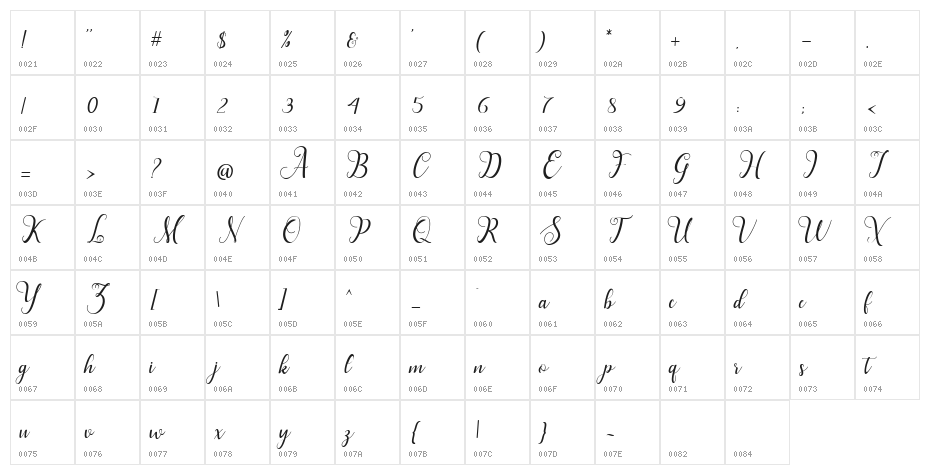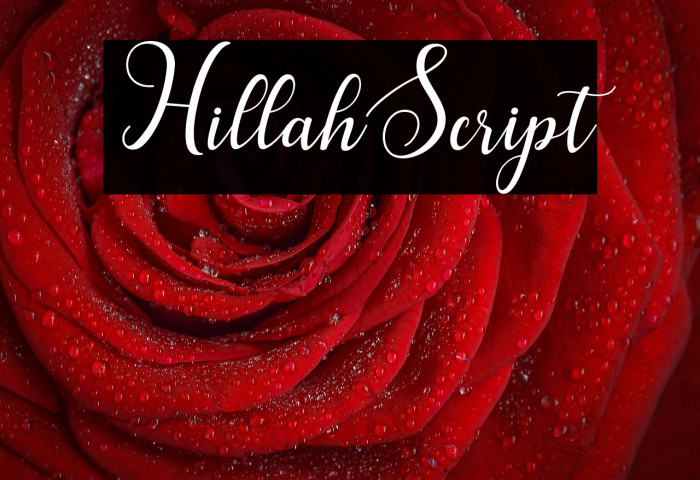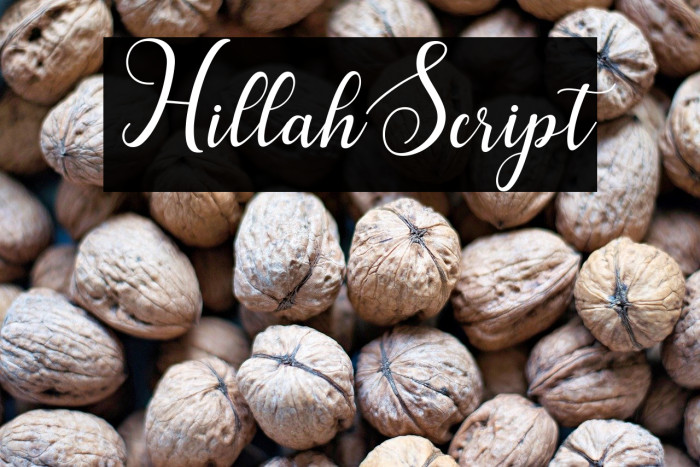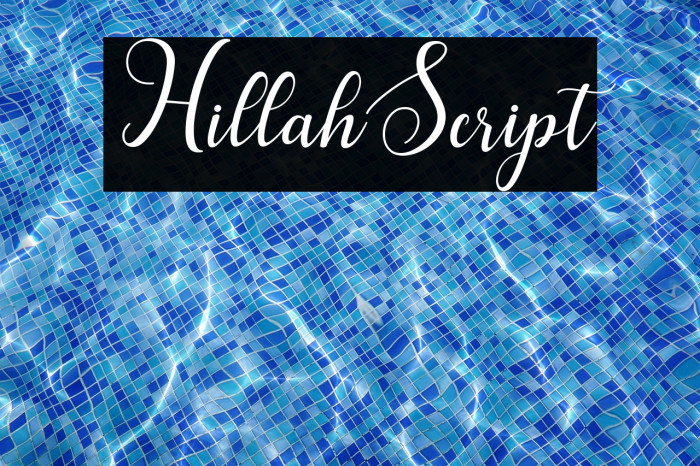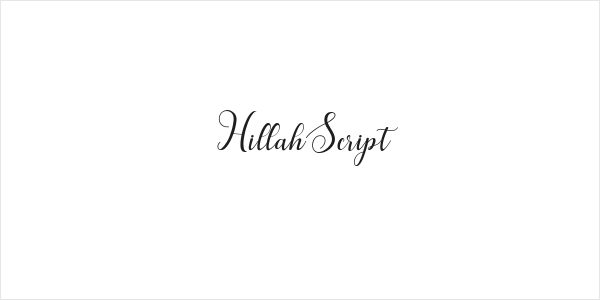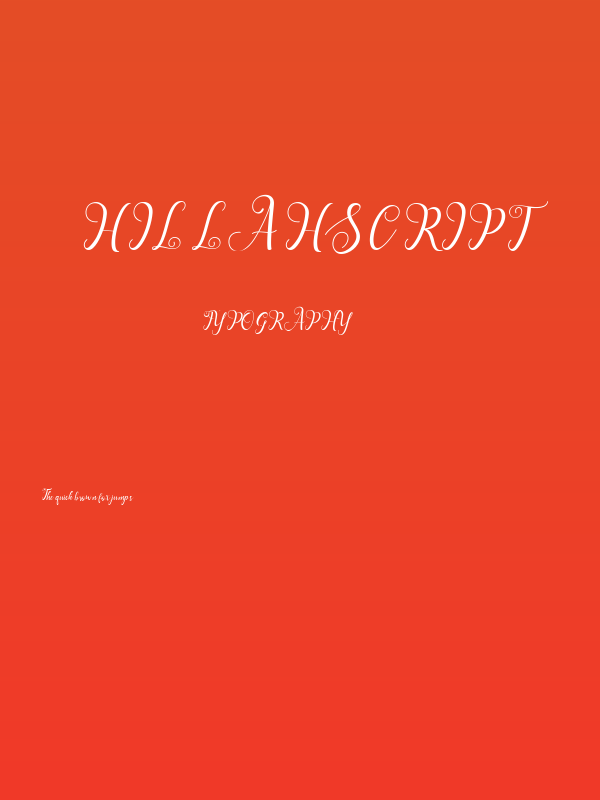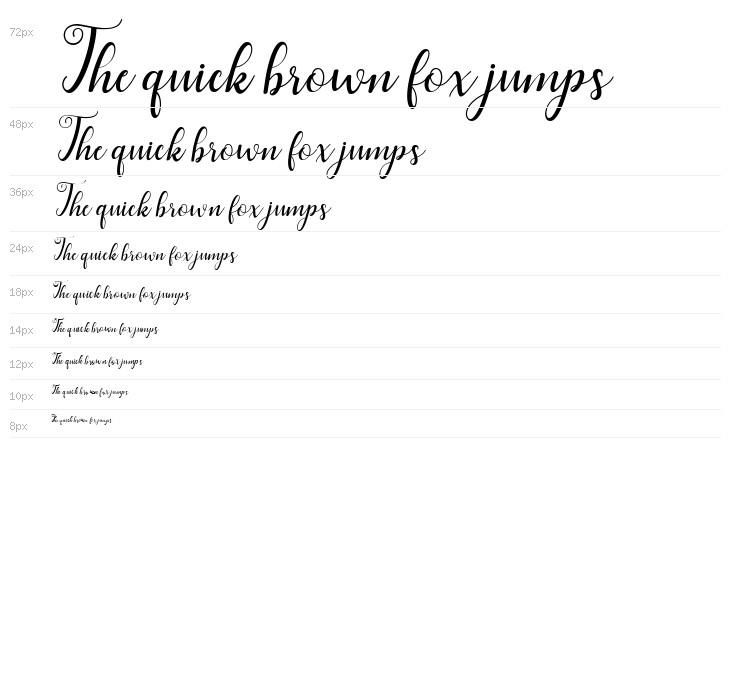
HillahScript Font
HillahScript Description
This elegant script font features a flowing, cursive style with delicate, sweeping curves and flourishes. The uppercase letters are ornate, with intricate loops and swashes that add a touch of sophistication. The lowercase letters maintain a consistent flow, enhancing readability while preserving the decorative nature of the font. Numbers and special characters are designed to complement the overall aesthetic, making this font suitable for formal and creative applications. Its high contrast in stroke thickness adds to its visual appeal, making it stand out in various design contexts.
| Use Case | Logos, Invitations, Branding |
| Proposed Projects | Ideal for wedding invitations, elegant branding, greeting cards, and upscale packaging. |